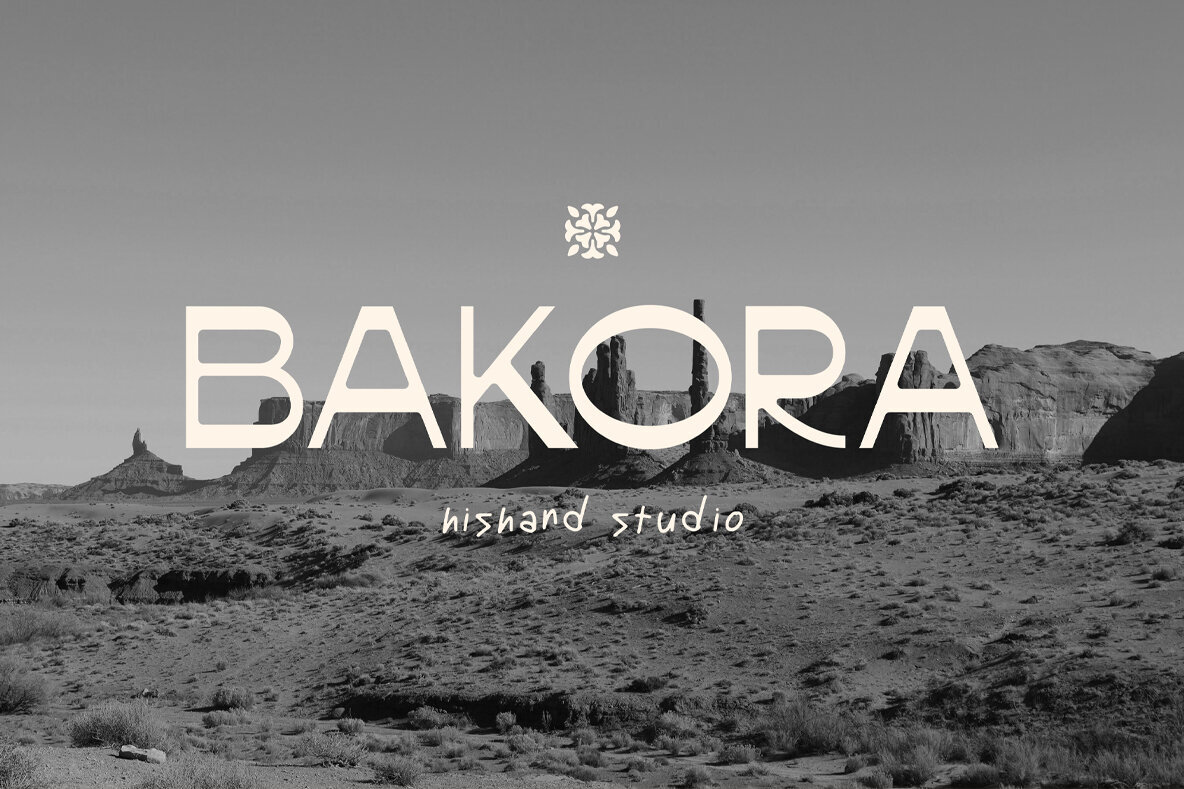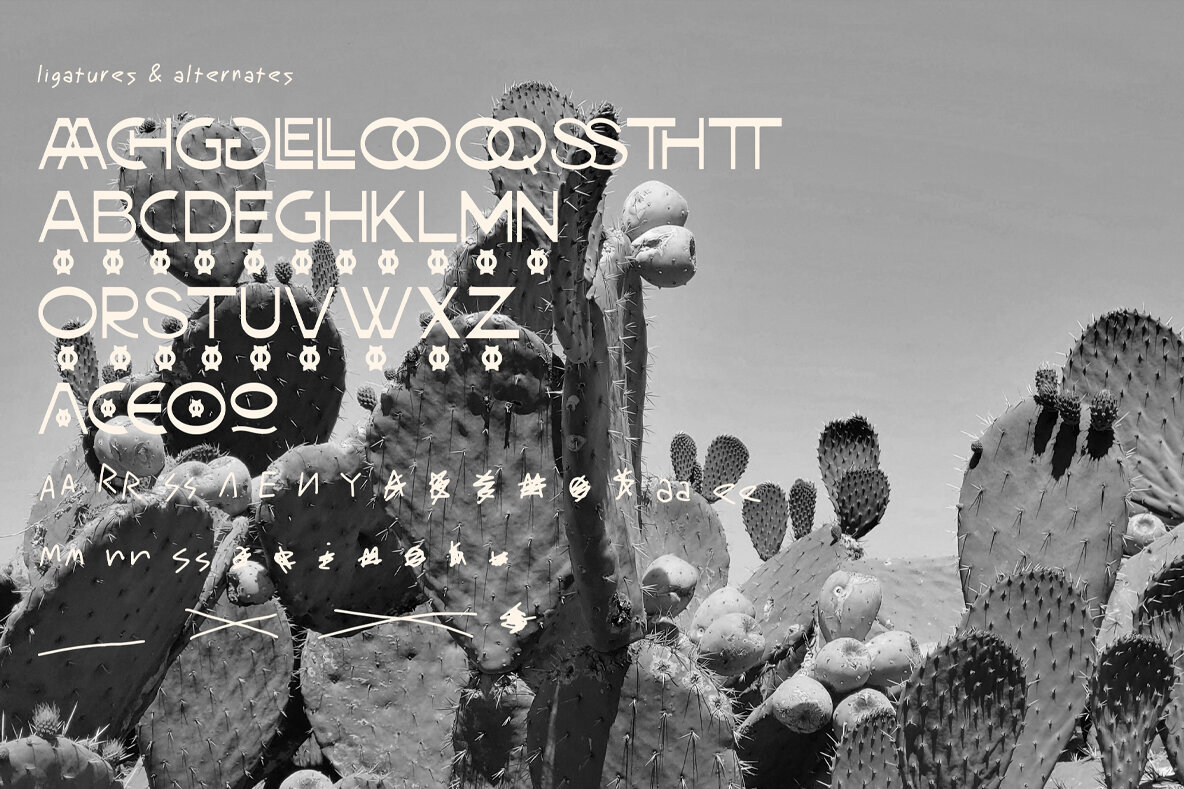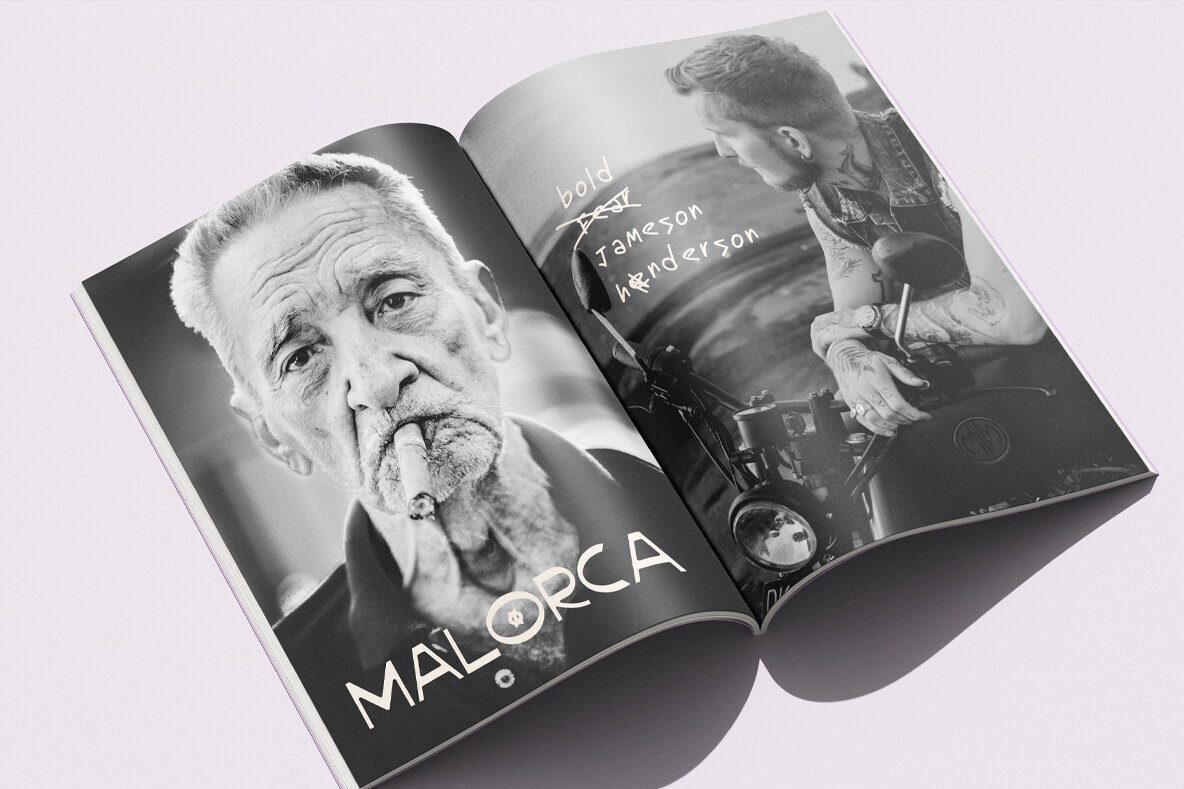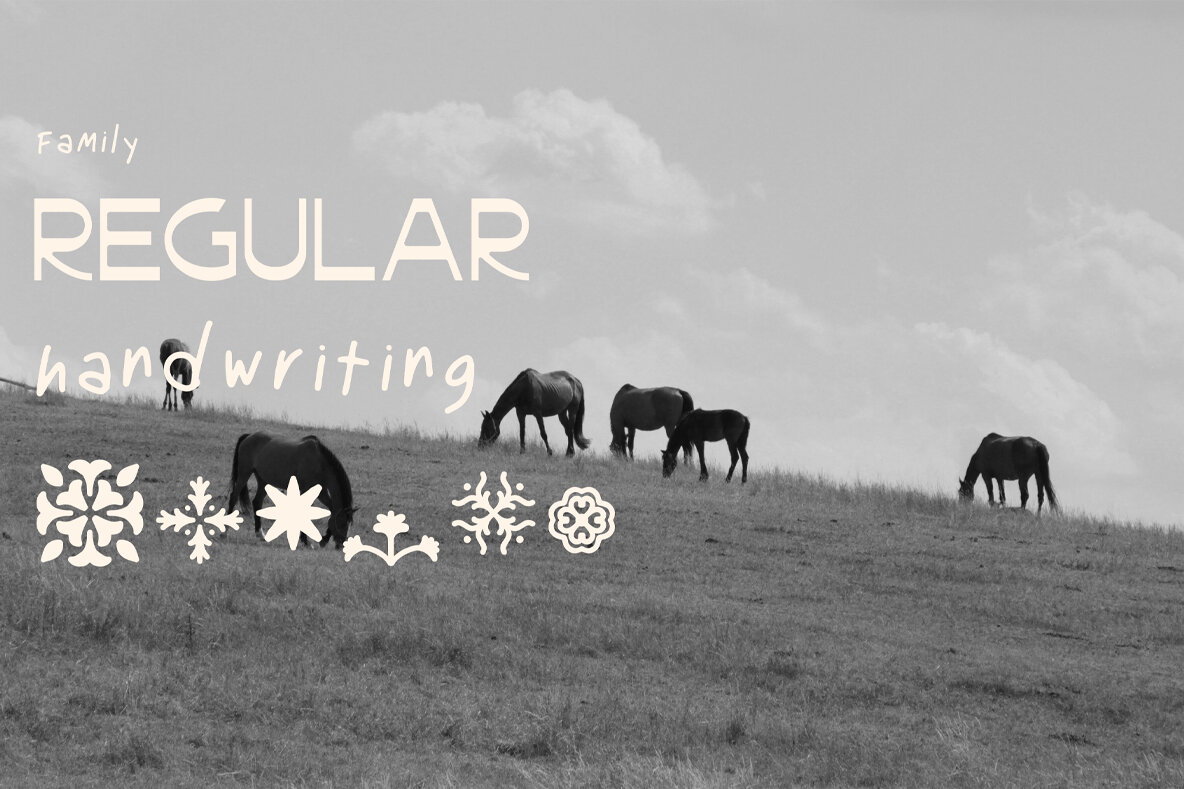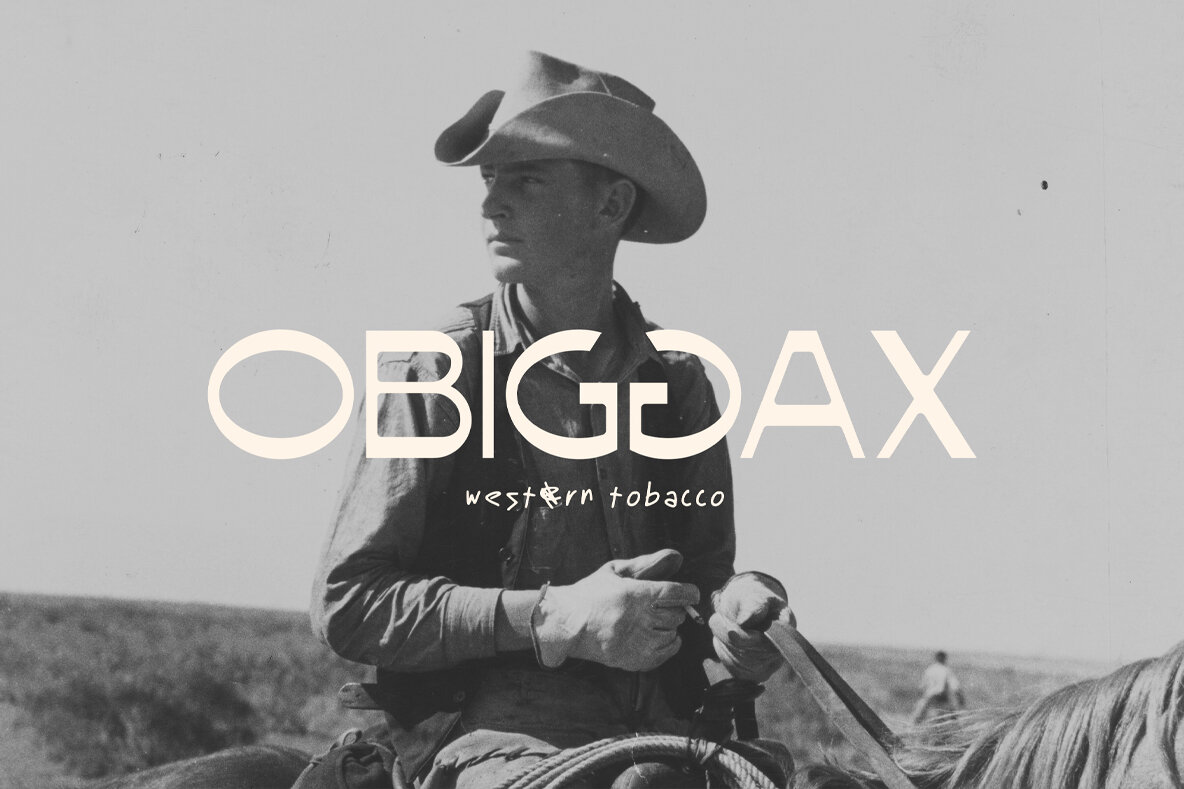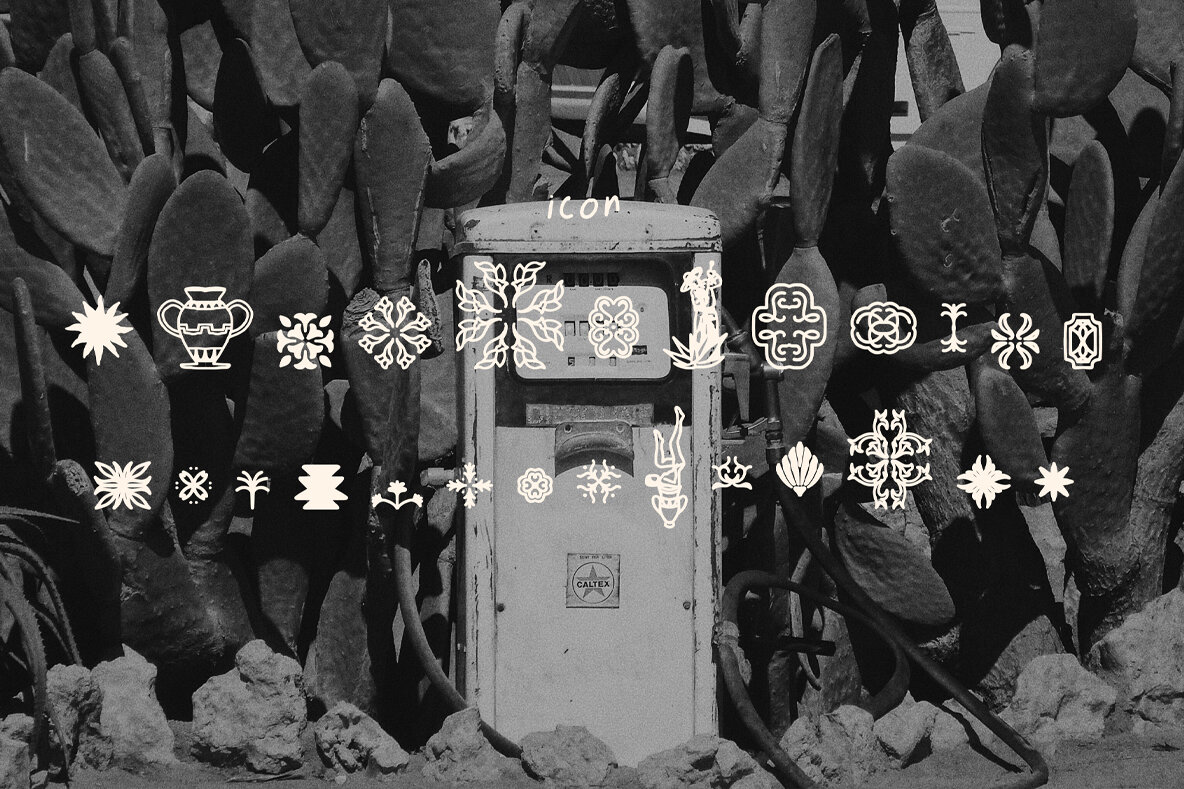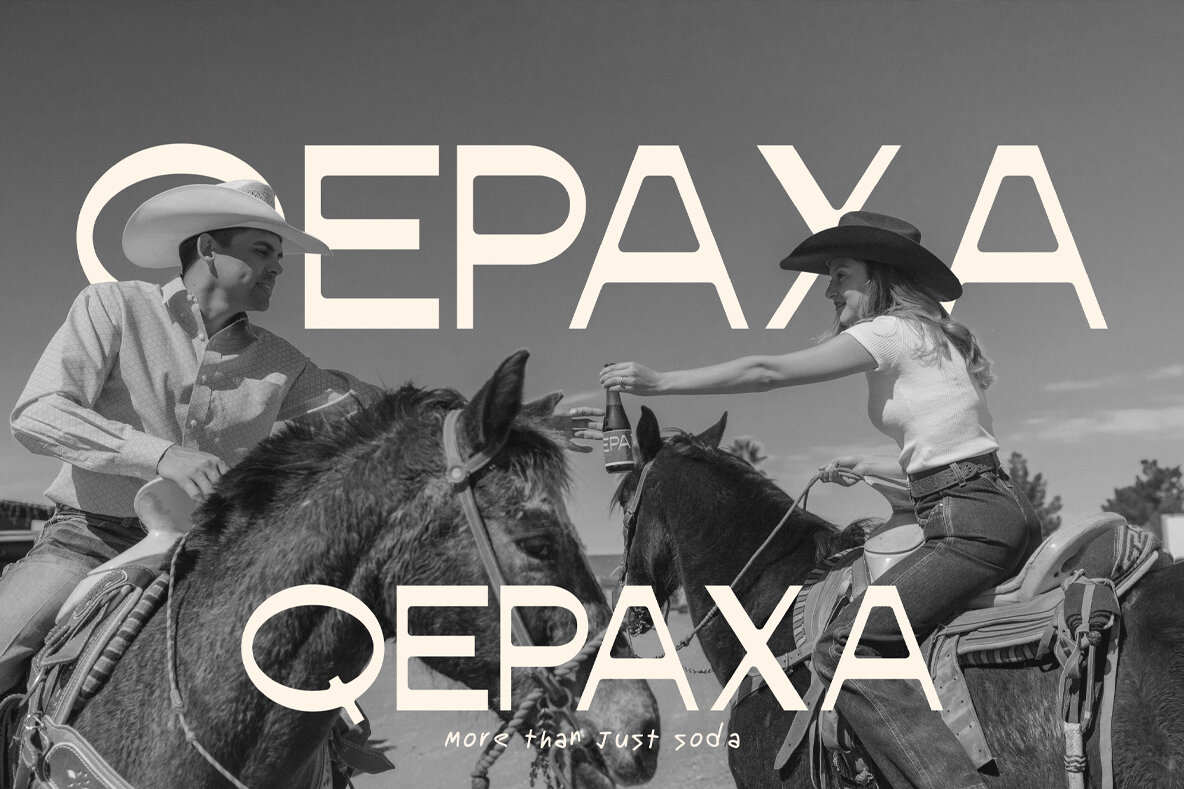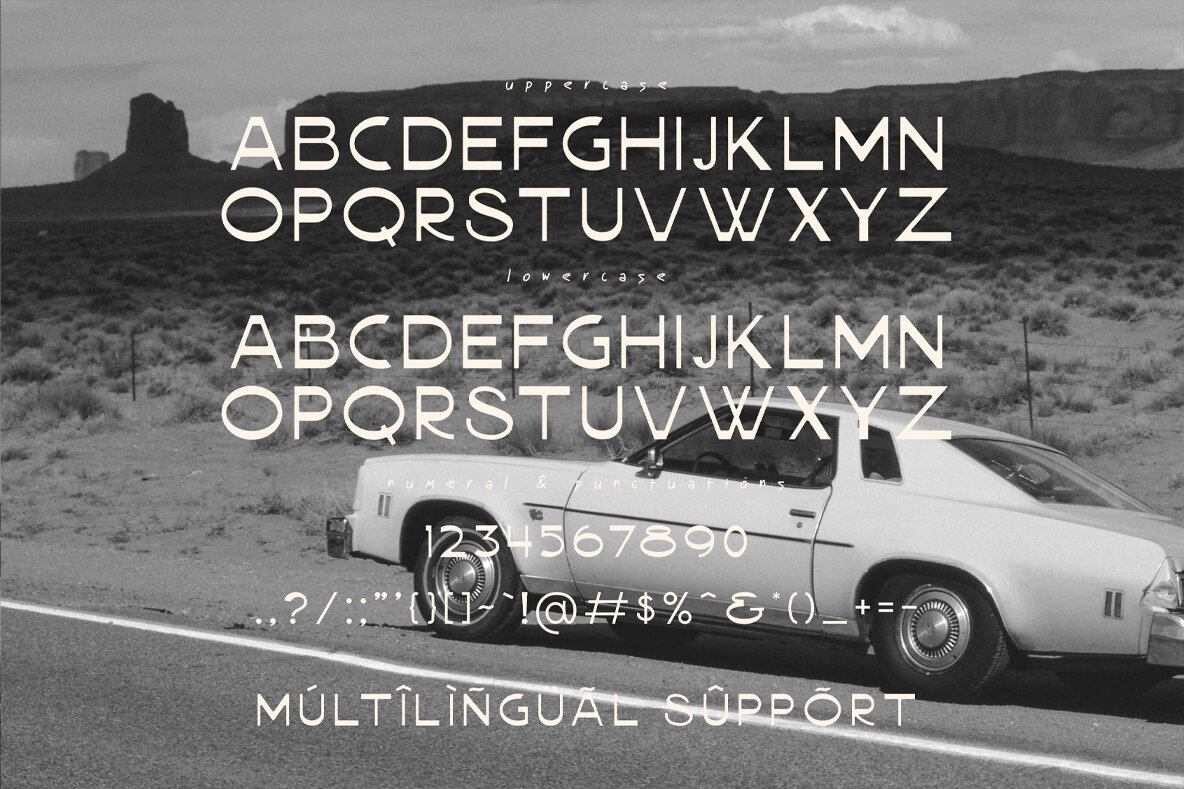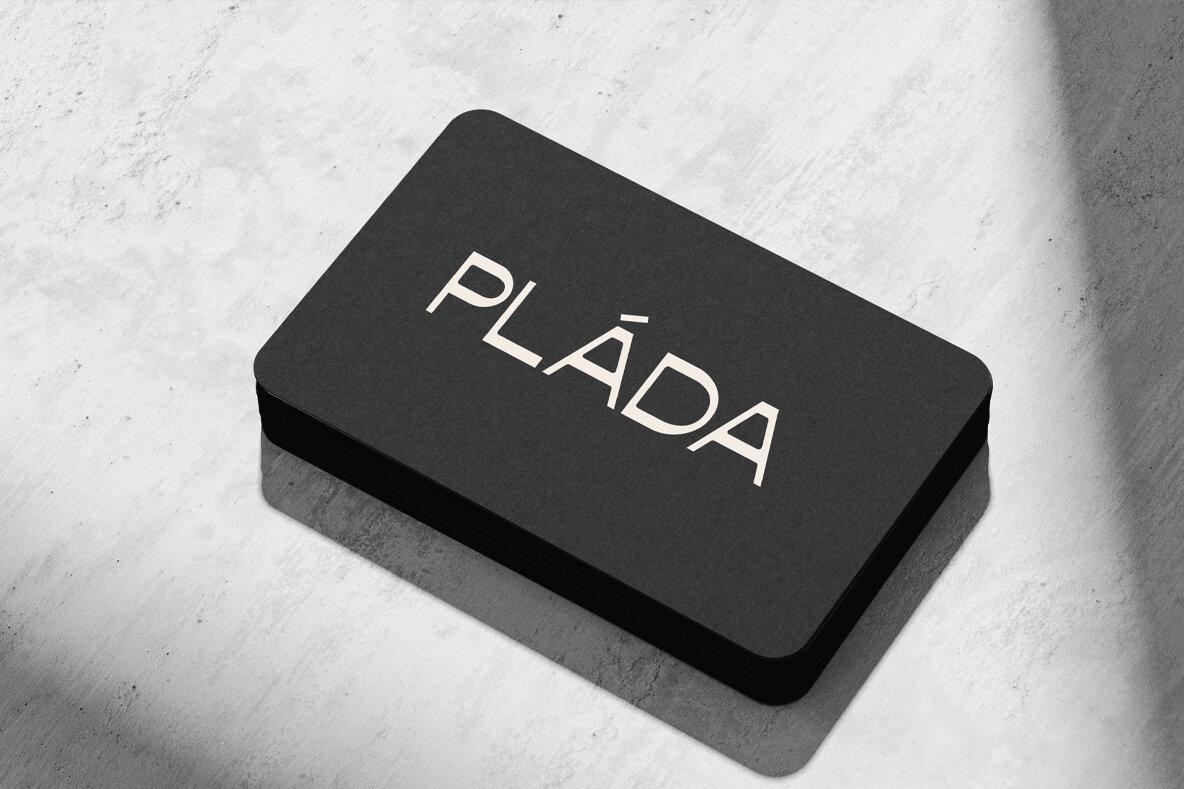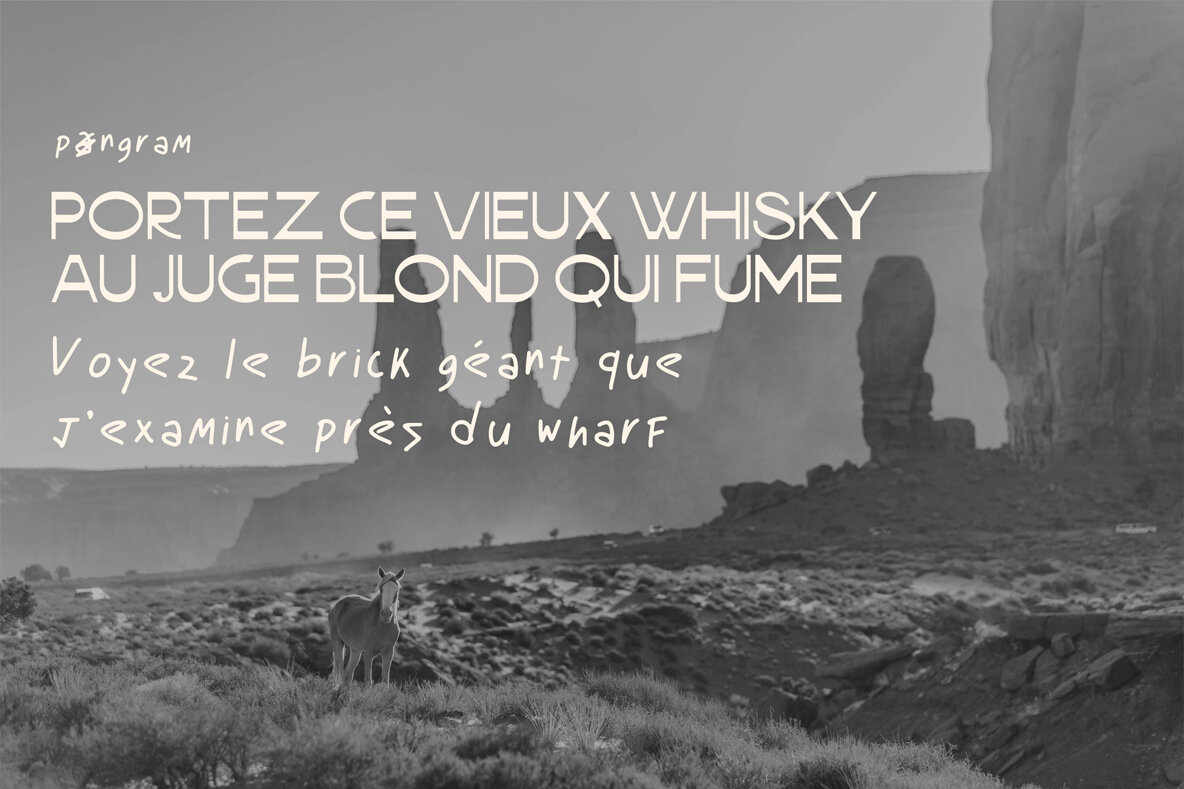
Bakora Font
Bakora is a stunning modern sans serif font designed by Hishand Studio, offering a perfect blend of sophistication and contemporary aesthetics. With its clean lines, bold letterforms, and subtle curves, Bakora stands out as a versatile typeface ideal for branding, editorial design, packaging, and more. Perfect for luxury branding & logos, magazine & editorial design, fashion & beauty projects, product packaging & labels, eegant website typography Complete with: